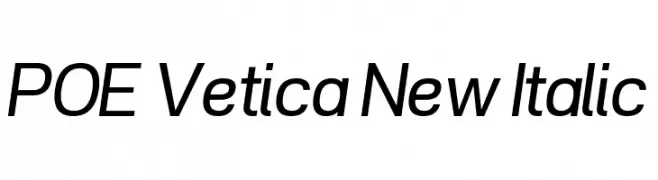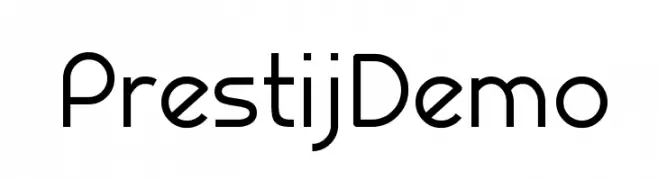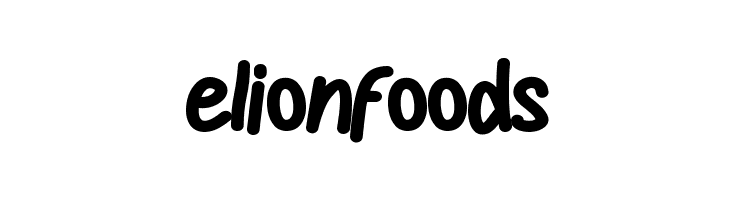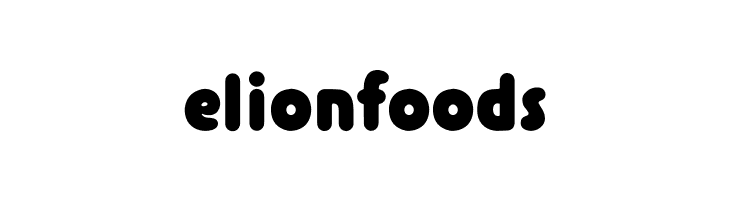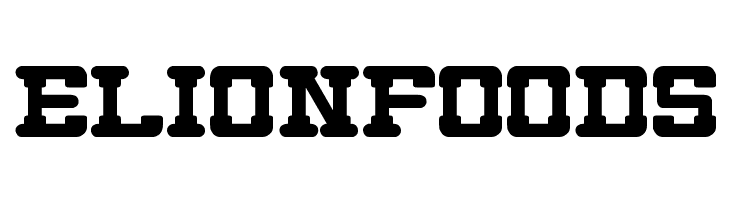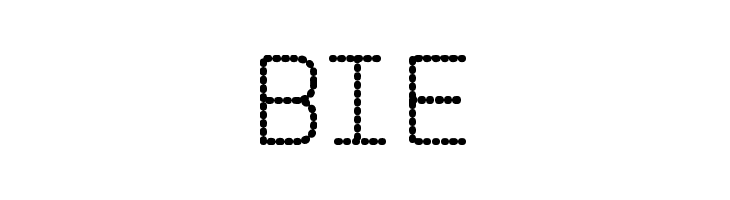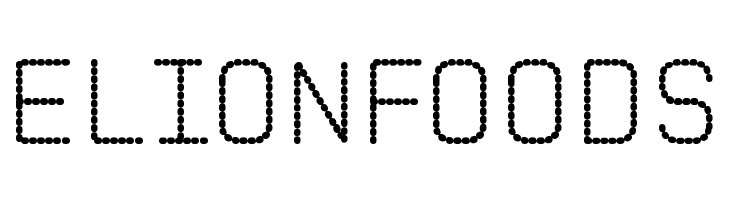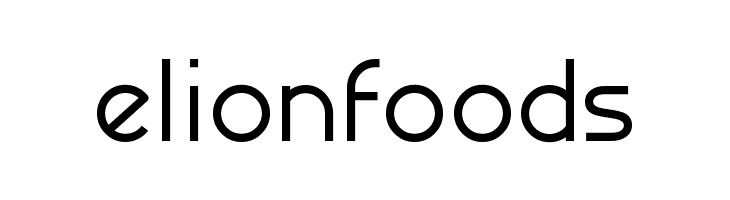
• Plopin
A bold, rounded font with a playful and friendly style.
• Plumbing
A bold, geometric font with an industrial, stencil-like appearance.
• Pocket Money
A bold, playful handwritten font with rounded edges and a casual style.
• POE Vetica New Italic
A modern, italic sans-serif font with clean lines and balanced proportions.
• Pointed Laid St
A modern, dotted font with geometric precision and playful design.
• Politoxicómano
A bold, jagged font with a dripping, horror-themed design.
• Ponderatta!"
A playful and modern font with smooth, flowing characters and a whimsical touch.
• PopStar Autograph
A playful, handwritten-style font with dynamic, autograph-like strokes.
• PopStarAutograph
A playful, handwritten font with a dynamic and energetic autograph style.
• Prestij Demo
A modern, geometric sans-serif font with smooth, rounded edges.